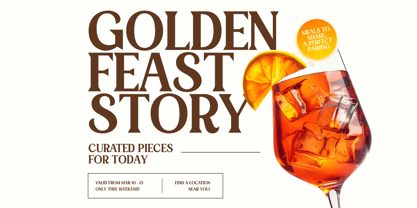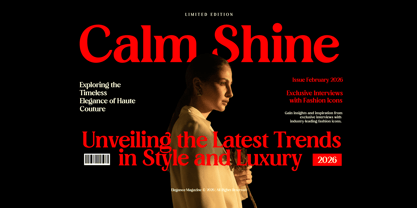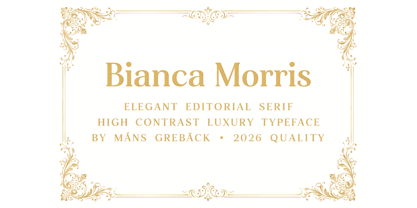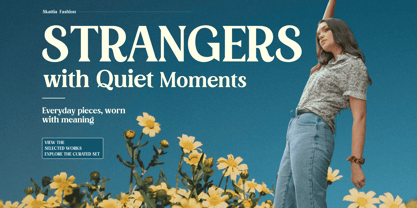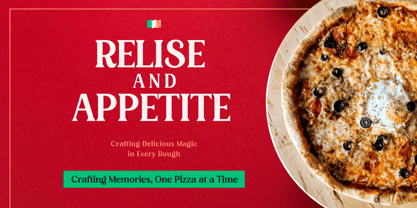
Bianca Morris
von Mans Greback
Die Schriftfamilie Bianca Morris wurde von Måns Grebäck entworfen und von Mans Greback veröffentlicht. Bianca Morris enthält 6 Stile und Familienpaketoptionen. Mehr über diese Familie
Bianca Morris is an elegant serif typeface built around contrast, balance, and quiet sophistication. With tall proportions, sharp serifs, and refined curves, the letterforms carry a classical editorial feel with a modern finish. The strokes move confidently between thick and thin, creating rhythm and clarity that feels composed rather than decorative. Its structure is formal but not stiff, allowing text to breathe while maintaining a polished presence. The font feels at home in carefully designed layouts where typography is meant to be noticed but not overbearing. It lends itself naturally to refined headlines, nameplates, and typographic compositions where elegance comes from precision rather than excess. The font is built with advanced functionality and guaranteed top-notch quality, containing stylistic and contextual alternates, ligatures and more automatic and manual features; all to give you full control and customizability. It has extensive lingual support, covering all Latin-based languages, from North Europa to South Africa, from America to South-East Asia. It contains all characters and symbols you'll ever need, including all punctuation and numbers. Bianca Morris was designed with a focus on editorial typography, inspired by classic print traditions and contemporary luxury design. The goal was to create a serif that feels confident and timeless, with details that reward close inspection without distracting from the overall reading experience.